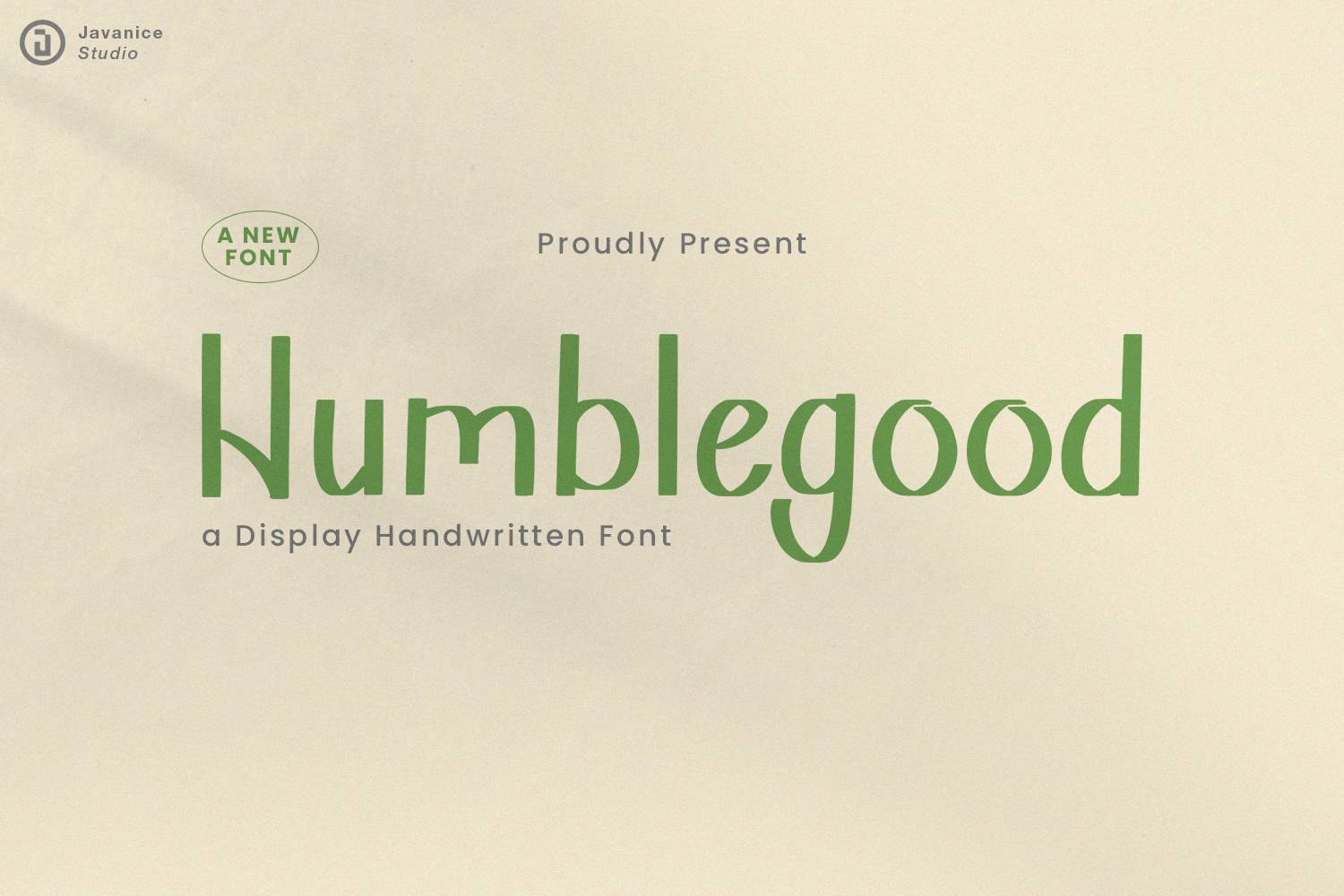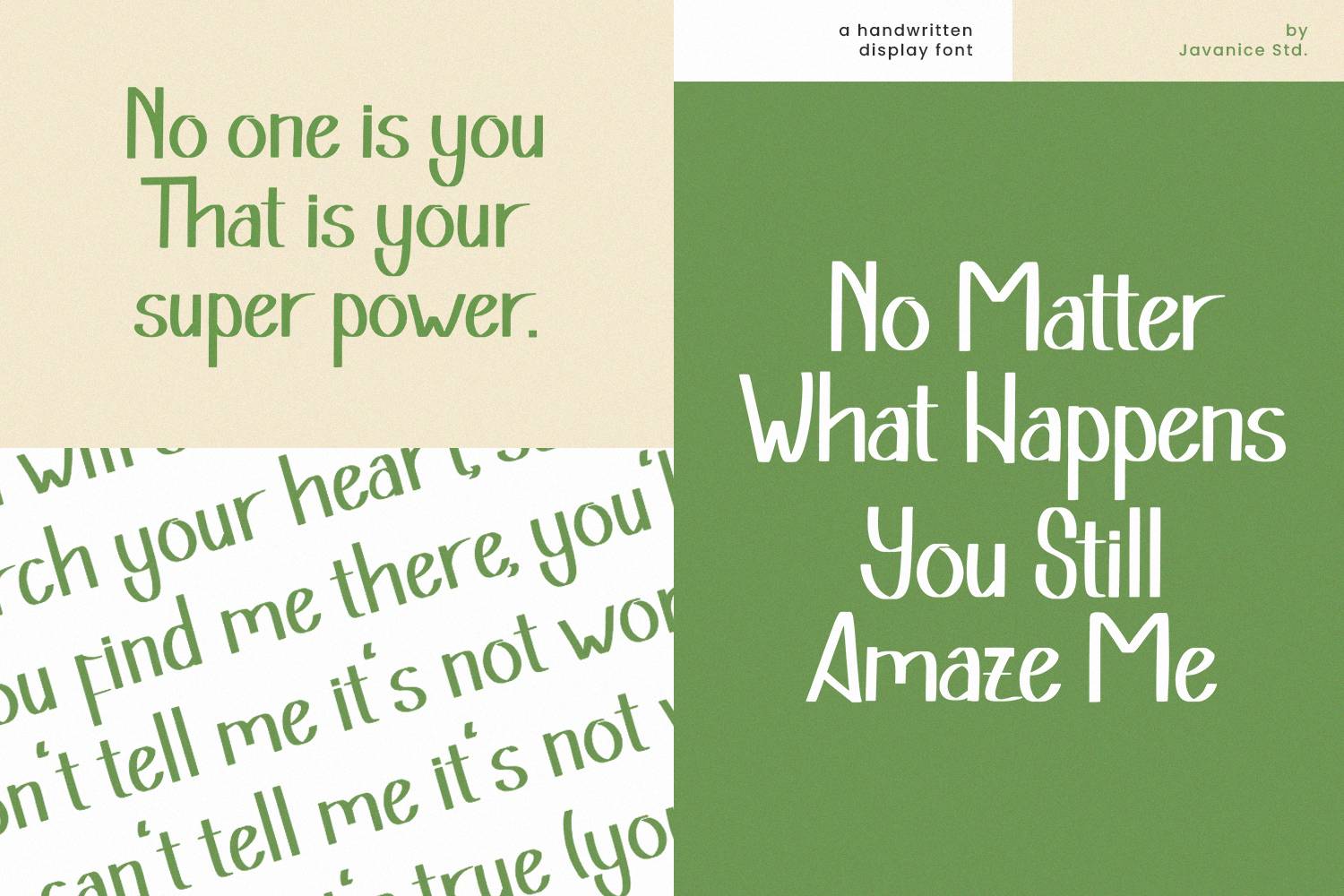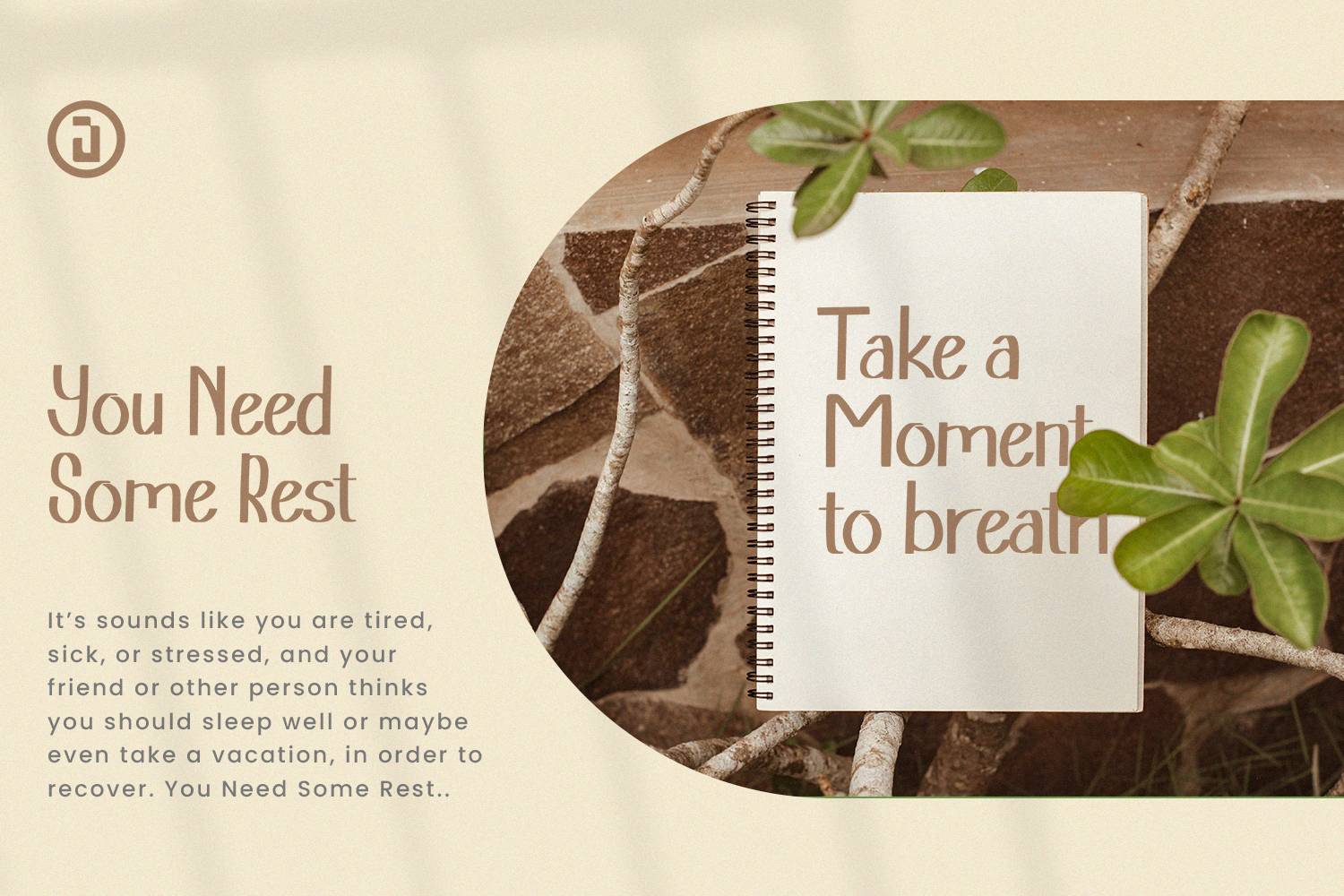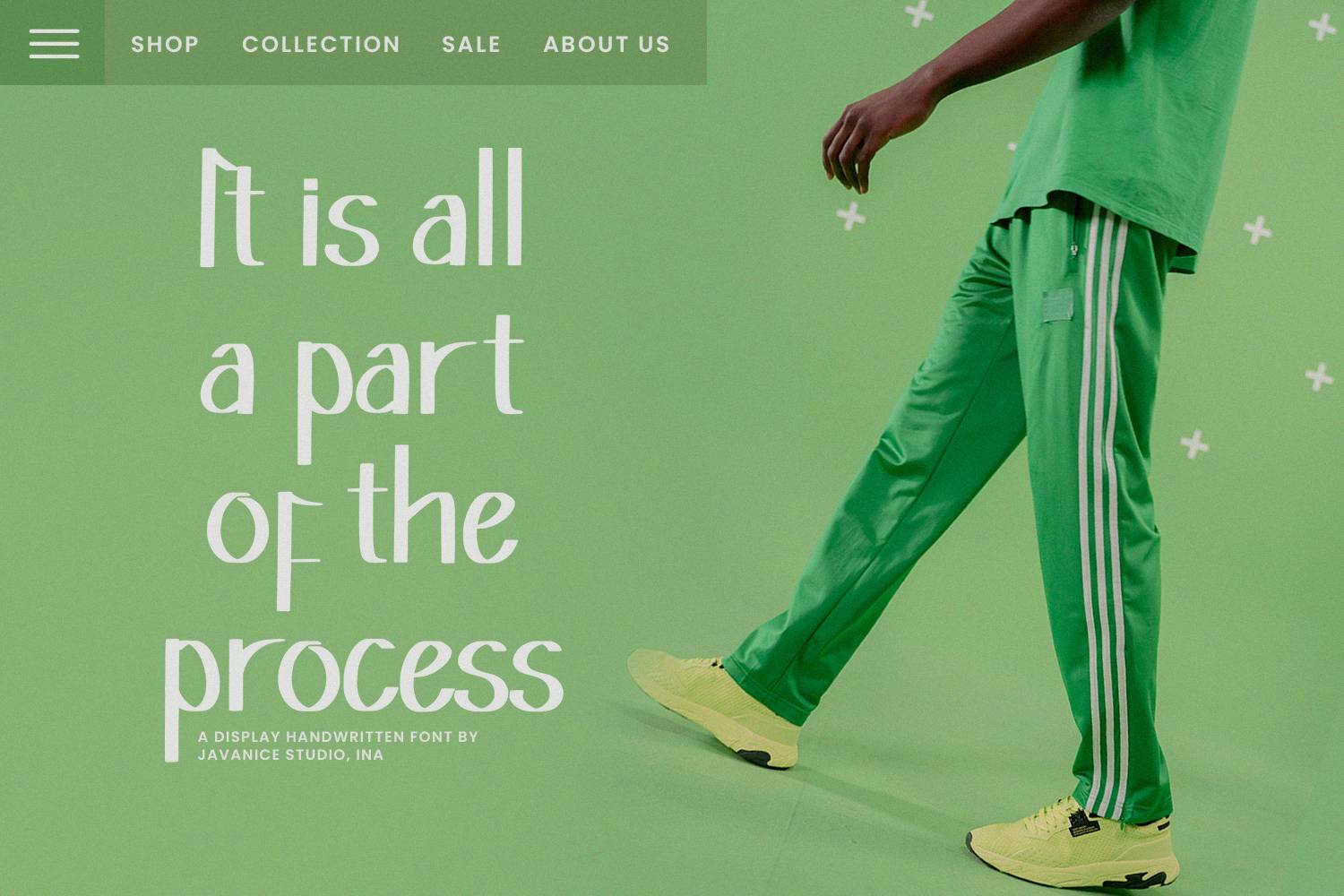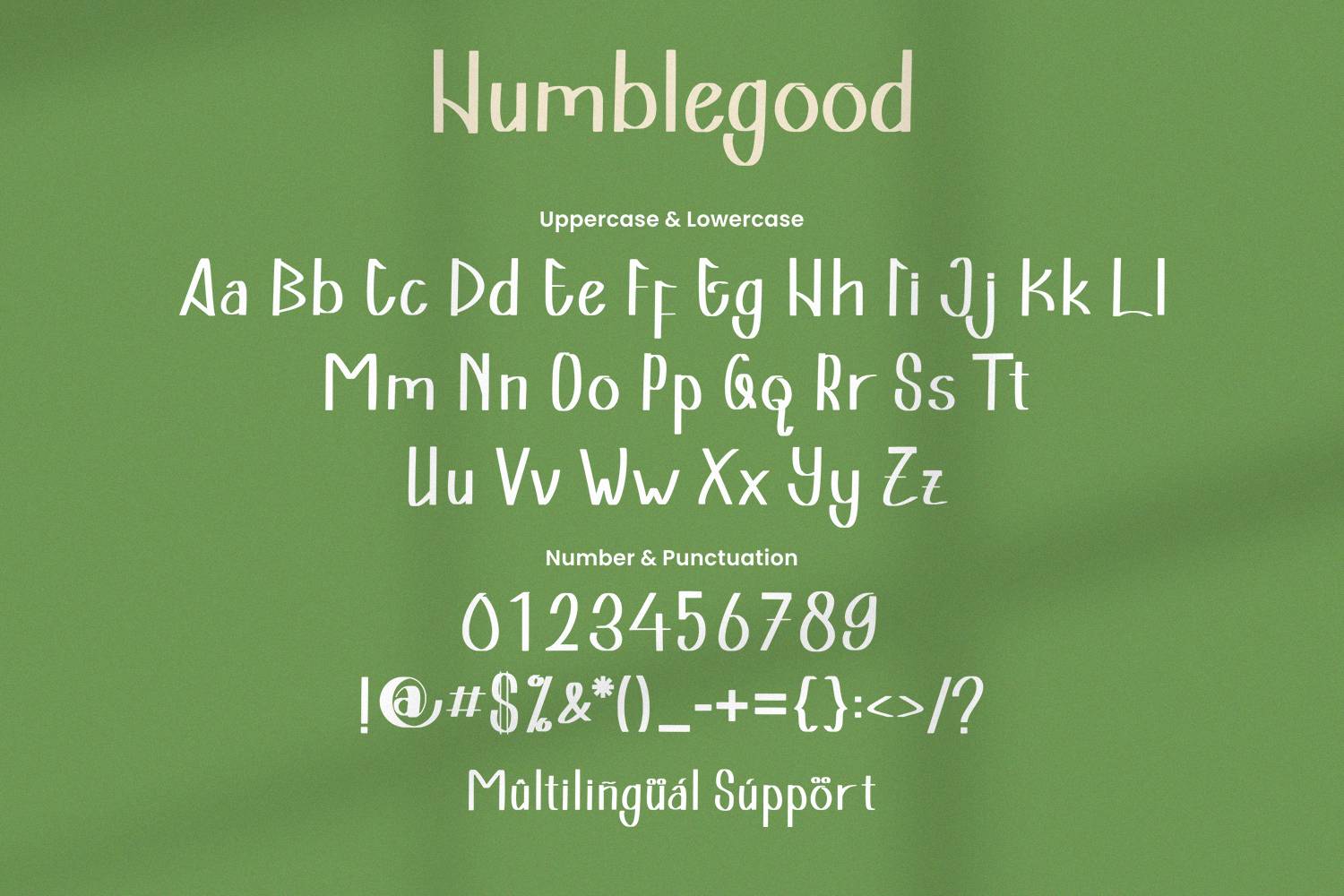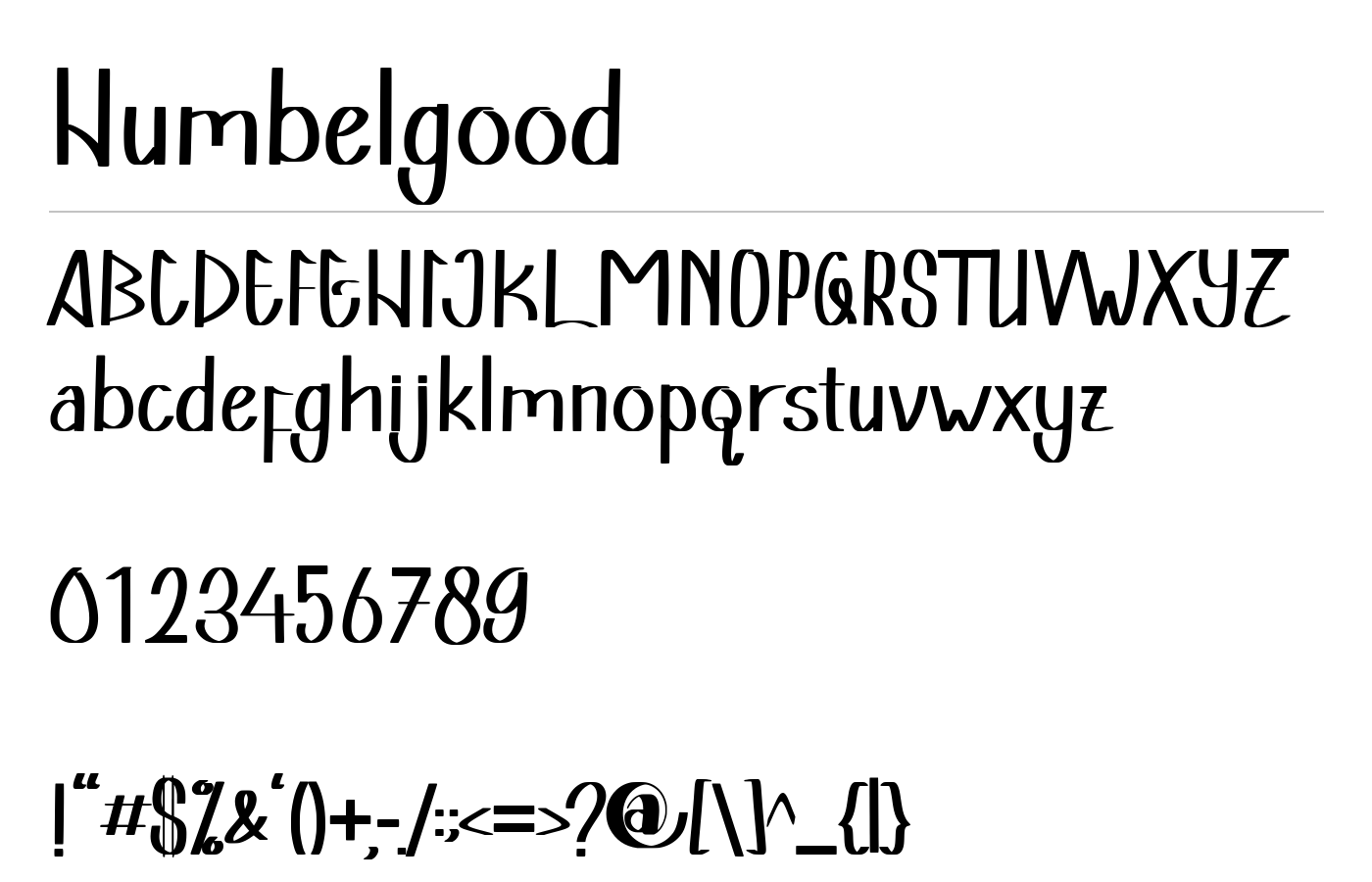
Humblegood is a quirky sans serif font with a tall, narrow structure and playful irregularities that give it a hand-crafted, artistic feel. Its uneven strokes and unique letterforms make it perfect for creative projects that want to convey personality and charm, such as logos, posters, and editorial headlines. This font works best where a distinctive, informal yet stylish tone is needed to stand out.
Humblegood Font
About Humblegood Font